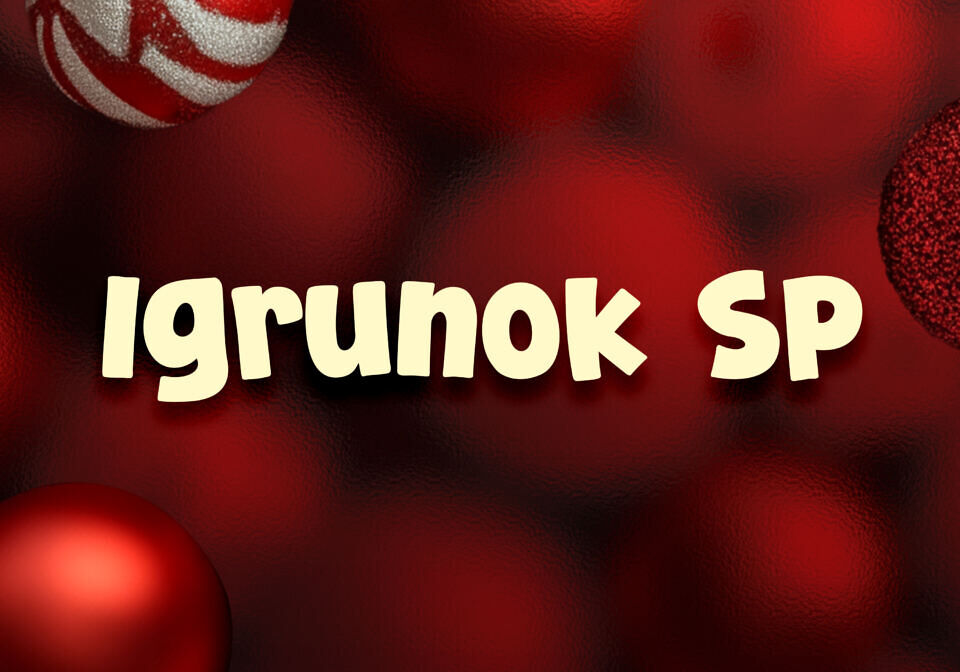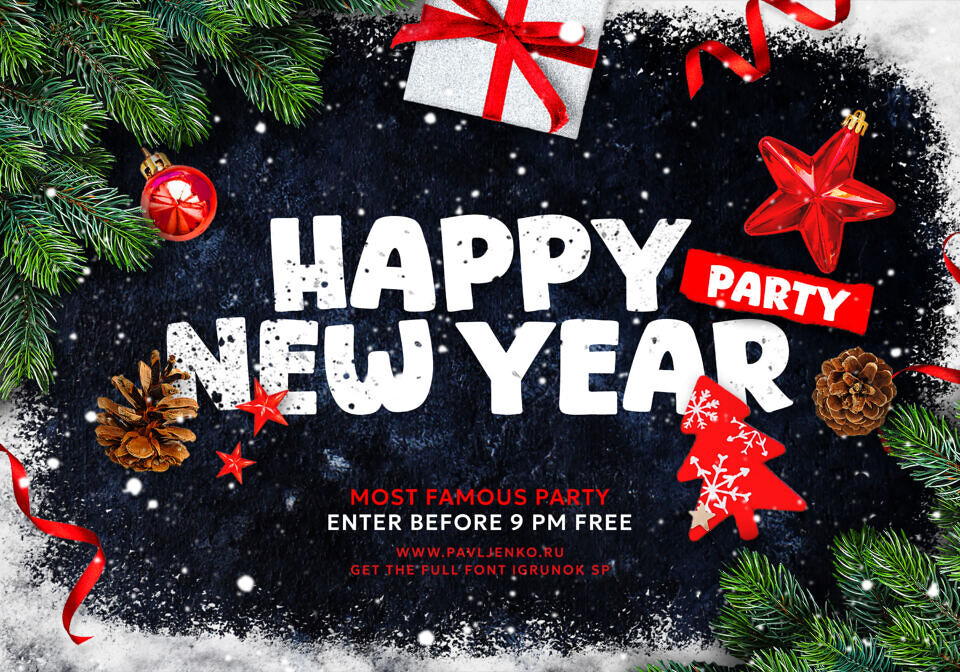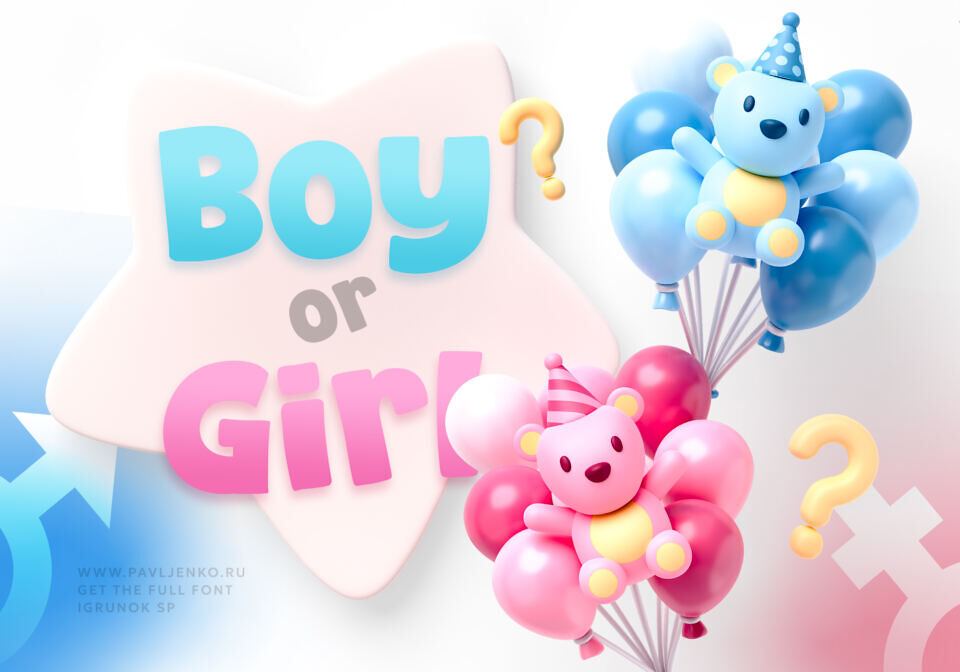
Igrunok SP Font
Igrunok SP is an accent (display) font with soft plasticity and rounded, slightly “puffed” shapes. Its design combines smooth strokes, softened endings, and an irregular rhythm, creating a sense of playfulness, movement, and friendliness.
It is a good choice for headlines, logos, candy packaging and children’s products, festive posters, and any projects where it is important to convey a feeling of carefreeness, warmth, and a cheerful mood.
Designed by: Sasha Pavljenko